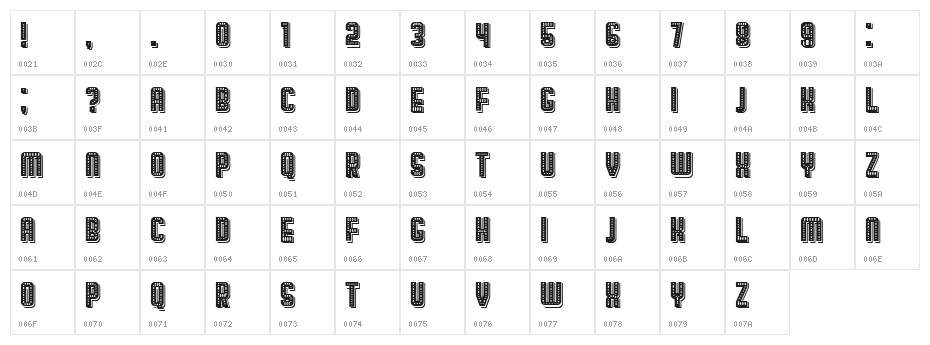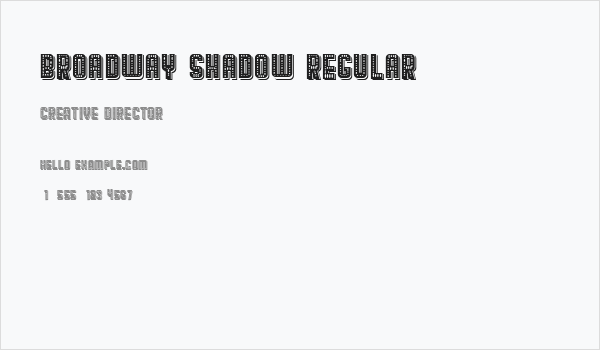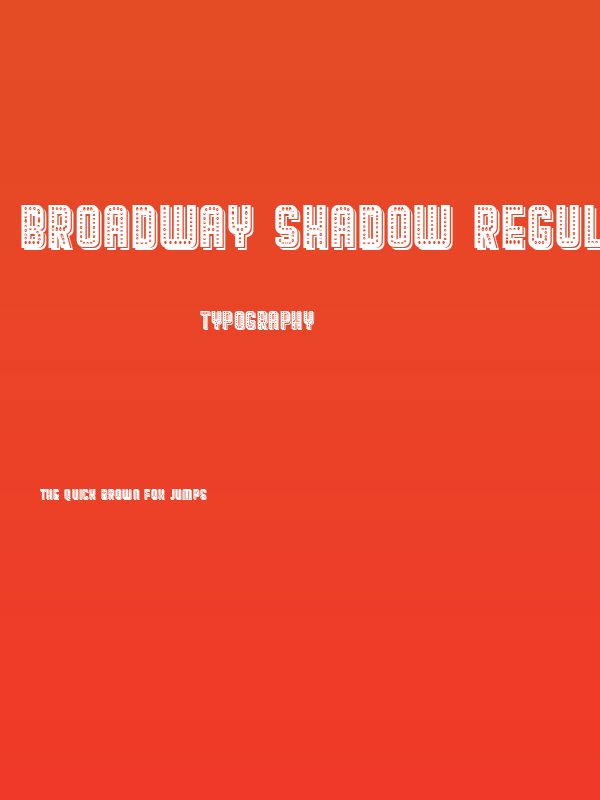
Broadway Shadow Regular Font
Broadway Shadow Regular Description
This font features a bold and dramatic style with a shadow effect that gives it a three-dimensional appearance. The characters are outlined and filled with a series of dots, creating a marquee or theater-like aesthetic. The uppercase letters are particularly striking, with a strong presence that commands attention. The numbers and special characters maintain the same bold, dotted style, ensuring consistency across all glyphs. This font is perfect for designs that require a vintage or theatrical flair, making it ideal for posters, signage, or any project that seeks to capture the essence of classic Broadway or cinema.
| Proposed Projects | Perfect for theater posters, vintage signage, event invitations, and retro-themed branding. |